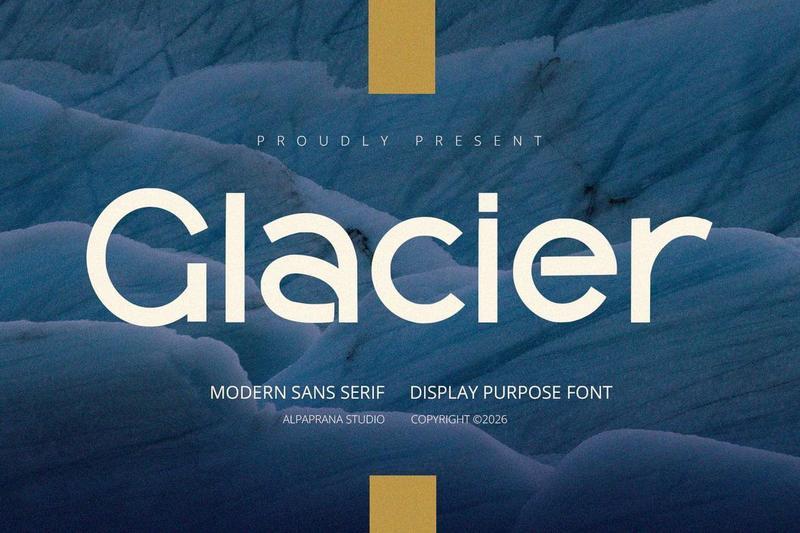
**Glacier** is display font with modern feels.
Features :
– Uppercase & Lowercase
– Numerals
– Punctuations (OpenType Standard)
– Accents (Multilingual Characters)
– Ligatures and Alternative Style Stylistic Set